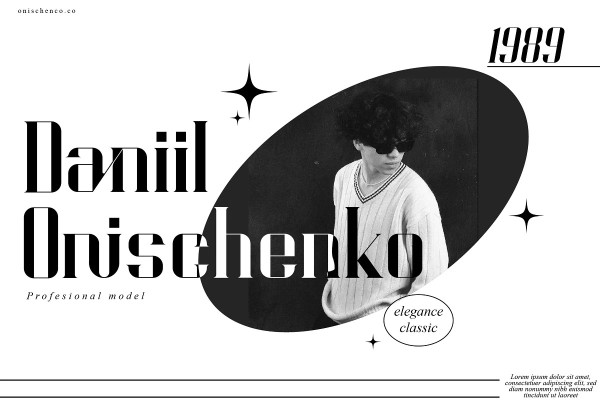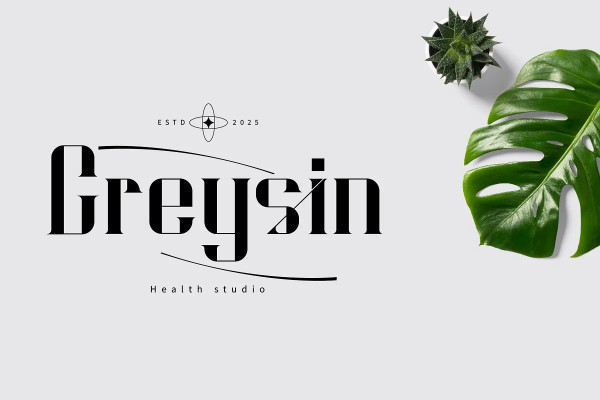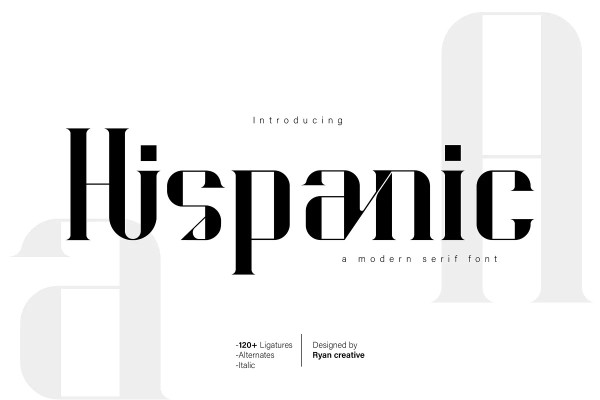
Hispanic Font
Hispanic fonts that have strong looking designs. In this font there is an additional taper at each end of the letter so that it seems more concentrated. Hispanic has more than 120 Ligatures that you can use in both modern and contemporary designs, and are suitable for use in a variety of fashion media, posters, model magazines, typography, promotions and other digital media.